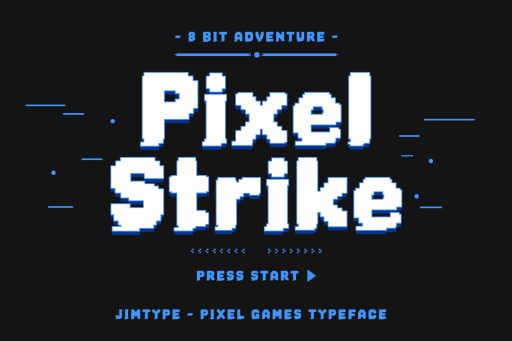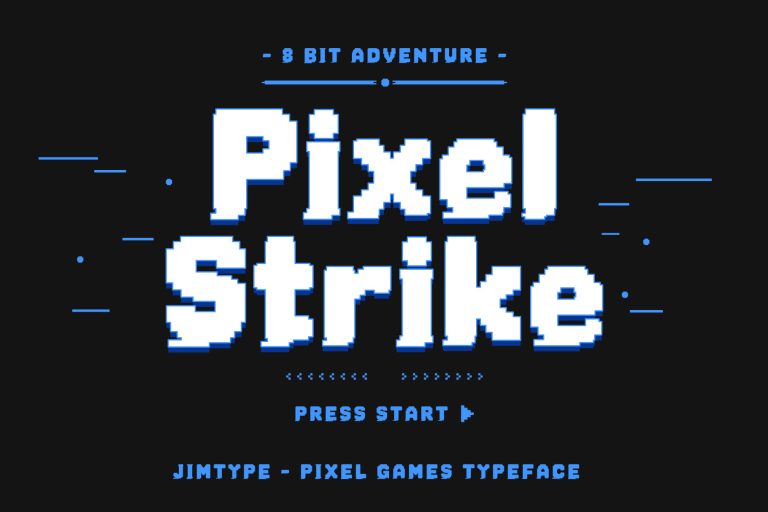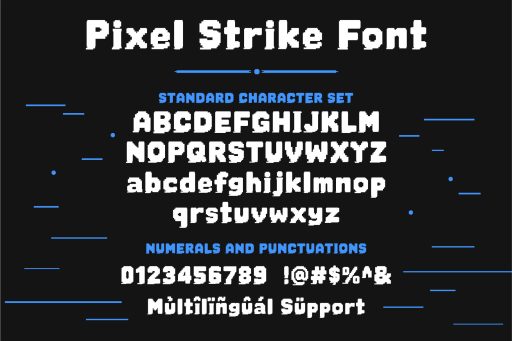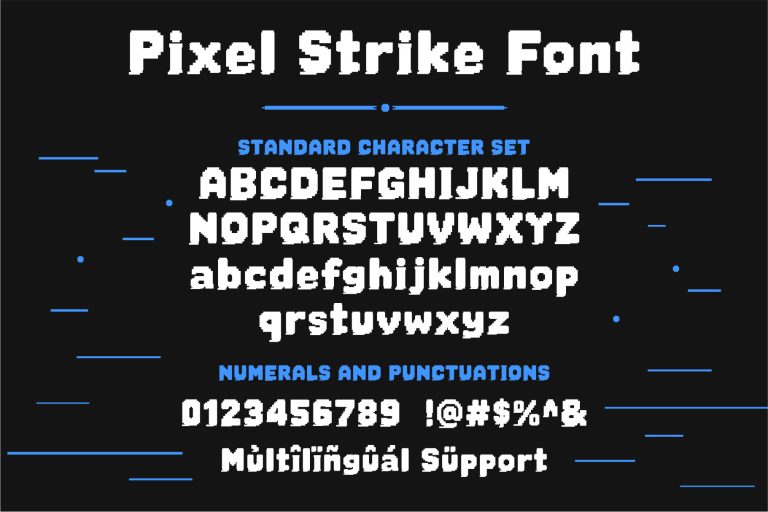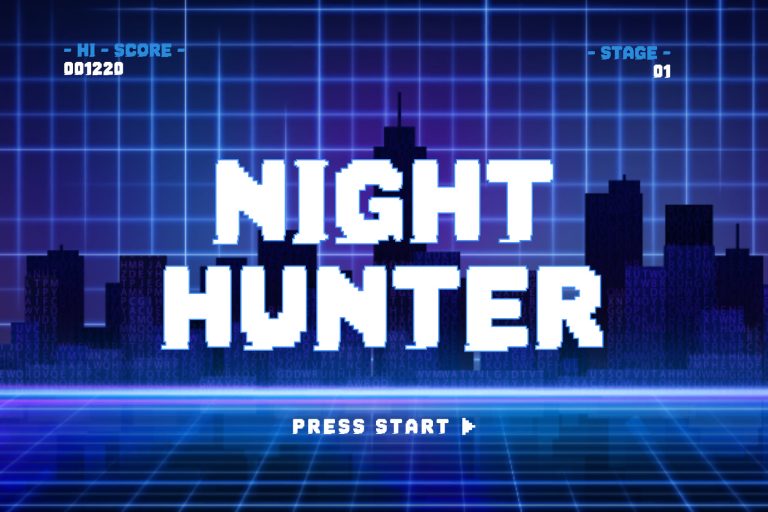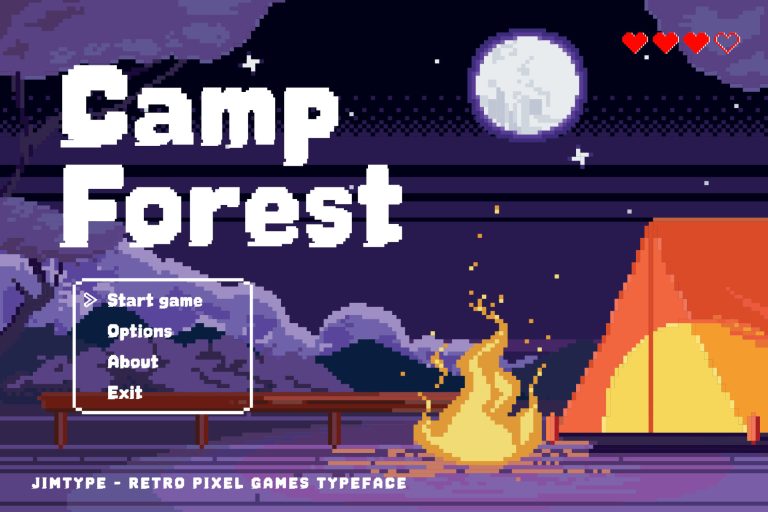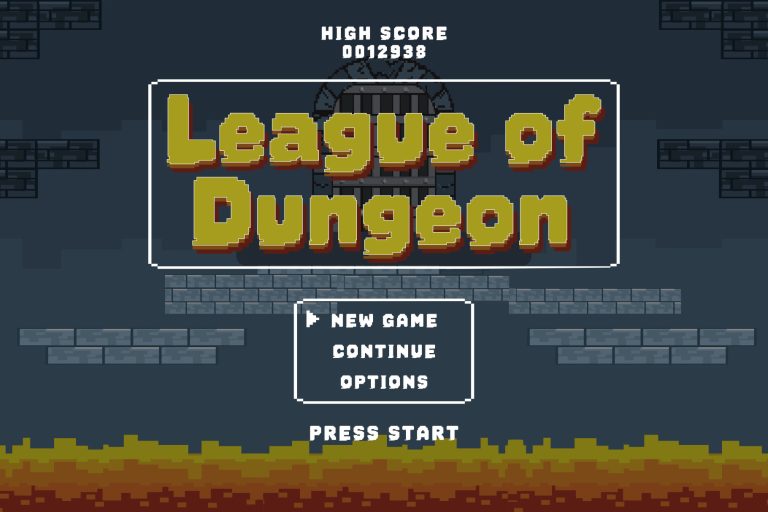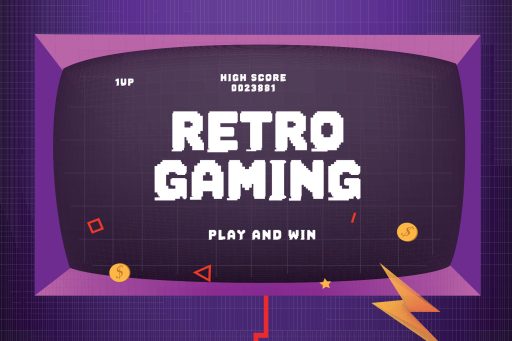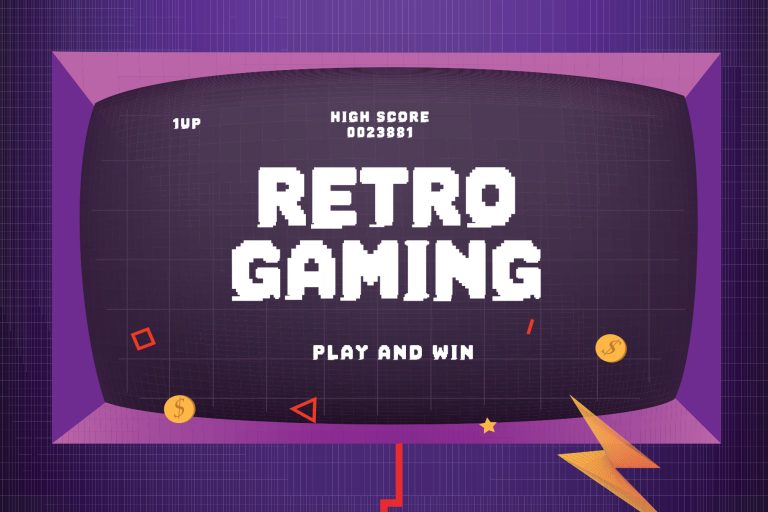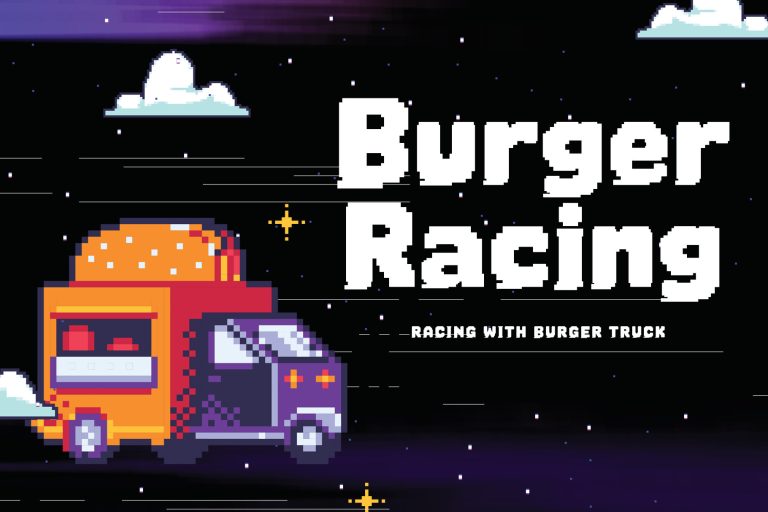
Pixel Strike - Retro Pixel for Gaming, Arcade & 8-Bit Font from Jimtype Studio
Pixel Strike Font
Pixel Strike – Retro Pixel Font for Gaming, Arcade & 8-Bit Design
Pixel Strike – Game Nostalgia! Bringing back all the nostalgia of retro gaming from the 80s, we’ve brought it to life in this modern-day typeface to elevate your designs with the Pixel Strike font, designed for game lovers, designers, and creators who want to bring authentic 8-bit nostalgia to their projects.
Inspired by classic arcade games, old-school console screens, and vintage game UI interfaces, Pixel Strike delivers a strong, pixel-perfect look with a clean, readable structure.
Whether you’re designing retro game titles, gaming thumbnails, posters, stream graphics, or nostalgic branding, this font gives your project an instant arcade feel.
Pixel Strike is designed to stand out—bold, fun, and full of digital nostalgia.